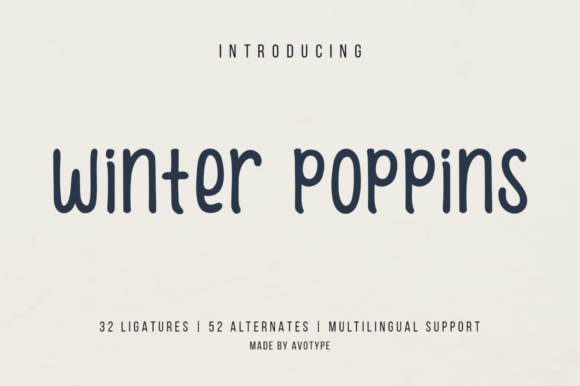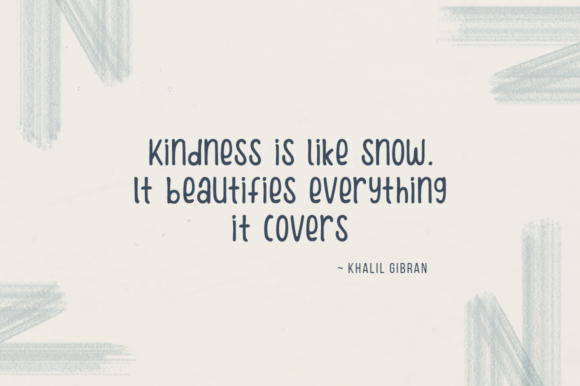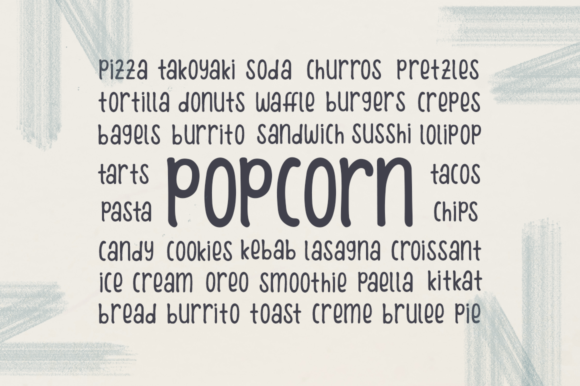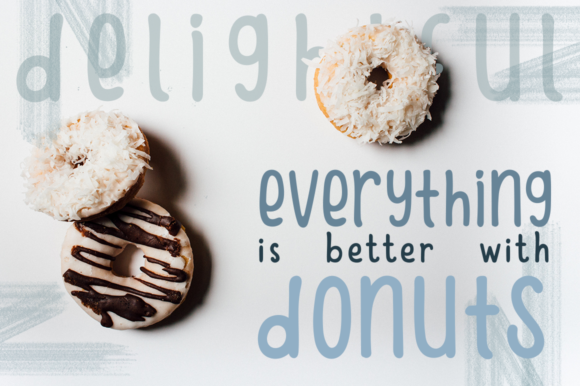
Winter Poppins Font
About Winter Poppins Font
Winter Poppins is a friendly font, loaded with handwritten personality that makes this font look unique and organic. The playful letters give your text a sweet, hand-lettered feel through the use of alternates and ligatures.